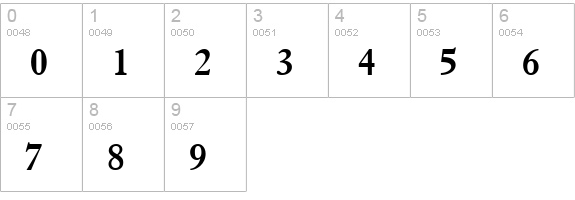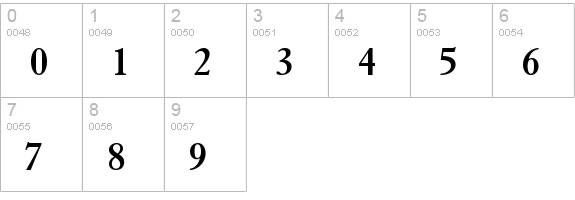
Tiasco SSi Bold Font Details
Tiasco SSi Bold is a strong, high-contrast variant in the Tiasco typeface family \xE2\x80\x94 well suited to headlines, attention-grabbing titles, and strong calls-to-action.
Tiasco SSi Bold is a striking and powerful font that exudes confidence and modernity. With its bold and strong letterforms, this font is perfect for creating impactful headlines, titles, and logos that demand attention. Featuring a harmonious balance between thick and thin strokes, Tiasco SSi Bold commands the viewer's gaze with its eye-catching presence. Whether used for print or digital designs, this font never fails to make a lasting impression. The versatility of Tiasco SSi Bold is unmatched, allowing it to effortlessly adapt to various design projects. From branding and packaging to web design and advertising, this font adds a touch of sophistication and professionalism to any visual composition. One of the most appealing aspects of Tiasco SSi Bold is that it is freely available to download at FontsMarket.com. This means that designers and creatives can easily access this captivating font without any cost or restrictions. It's an excellent opportunity for individuals and businesses alike to elevate their projects and stand out from the crowd. So, if you're looking for a bold and impactful font that is both visually stunning and freely accessible, Tiasco SSi Bold is the perfect choice. Download it today from FontsMarket.com and let your creativity soar to new heights.